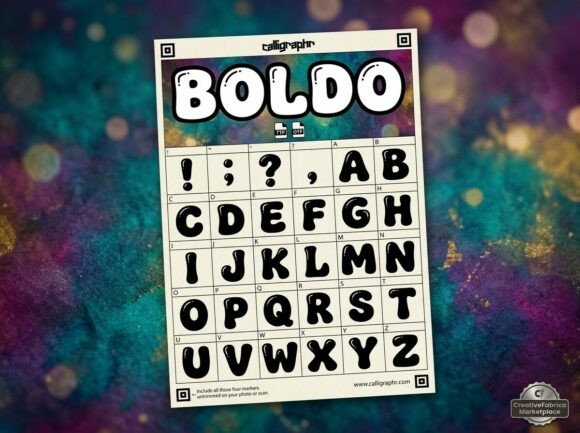
Discovering the Perfect Blend of Playfulness and Nostalgia
Remember that moment when you stumbled upon a vintage toy store, and the vibrant colors and quirky designs instantly transported you back to a carefree childhood? That’s exactly the kind of magic the Boldo Font is designed to capture.
Boldo Font is a massive display sans that embodies a playful-and-pop-art soul, perfect for independent toy store identities, boutique kids’ apparel logos, and creative learning materials. With its ultra-rounded, inflated letterforms and heavy structural weight, Boldo Font bridges the gap between 90s nostalgia and modern candy-coated branding. As a designer, you’ll appreciate Boldo Font’s unique ability to evoke a sense of joy and wonder, making it a valuable addition to your toolkit.
Boldo Font Key Features
- Font Style: Boldo Font is a sans-serif font with a modern and elegant design.
- Unique Characteristic: Boldo Font features a unique blend of geometric and organic shapes, giving it a distinctive and modern look.
Boldo Font Review
As a designer, I’ve had the chance to work with a wide range of fonts, but Boldo Font caught my eye for its unique blend of modernity and elegance. Here’s my honest review.
- Unique letterforms: Boldo Font’s letterforms are quite distinctive, making it perfect for designs where you want to add a touch of personality.
- High legibility: Despite its bold appearance, the font is remarkably easy to read, making it suitable for body text.
- Good versatility: Boldo Font works well in a variety of contexts, from digital screens to print materials.
- Limited language support: Boldo Font might not be the best choice for languages that require a high level of contextual ligatures.
- No italic or oblique versions: If you need to create italic or oblique text, you’ll have to rely on workarounds or use a different font.
Overall, I’m impressed with Boldo Font’s unique design and versatility. While it may have some limitations, it’s a great choice for designers looking for a bold, modern font that stands out from the crowd.
Boldo Font is ideal for creating bold and eye-catching headlines, titles, and headings. It is also great for creating a unique and modern look in designs, presentations, and documents. Some common use cases include:
- Creating attention-grabbing headlines and titles
- Designing modern and unique typography
- Adding a touch of elegance and sophistication to designs